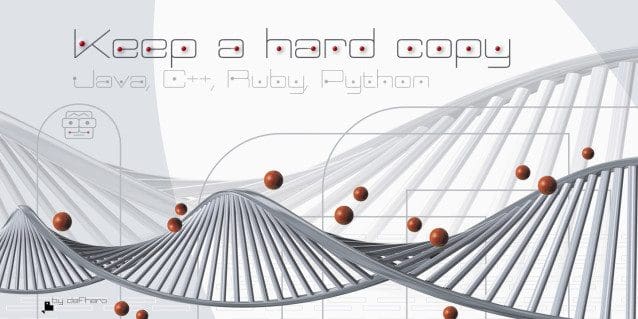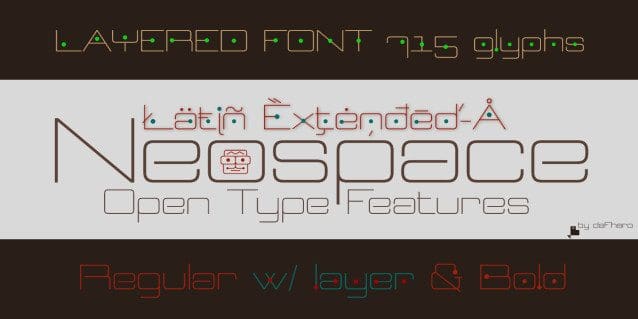
Neospace Extended Font
Neospace Extended Font is a layered font that allows you to create typographic titles in various colors, imitating the sophistication of futuristic electronic circuits. In the download file you will find an example Photoshop image with layers to see the use of the two fonts creating multicolored titles.
Neospace is an avant-garde typeface designed for lovers of technology and science fiction. With its elegant extended proportion and geometric minimalism, Neospace redefines typographic aesthetics with a perfect fusion between modern and futuristic.
Geometric Inspiration
Each Neospace character has been sculpted from the letter “O”, using the mathematical proportions of the Fibonacci sequence in curves, metrics and kerning, adding a golden ratio to each character. This meticulous approach ensures exceptional readability and a unique aesthetic that evokes a sense of order and precision.